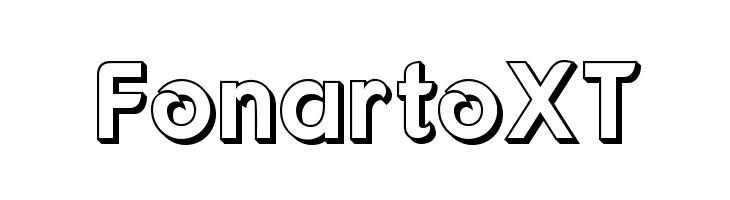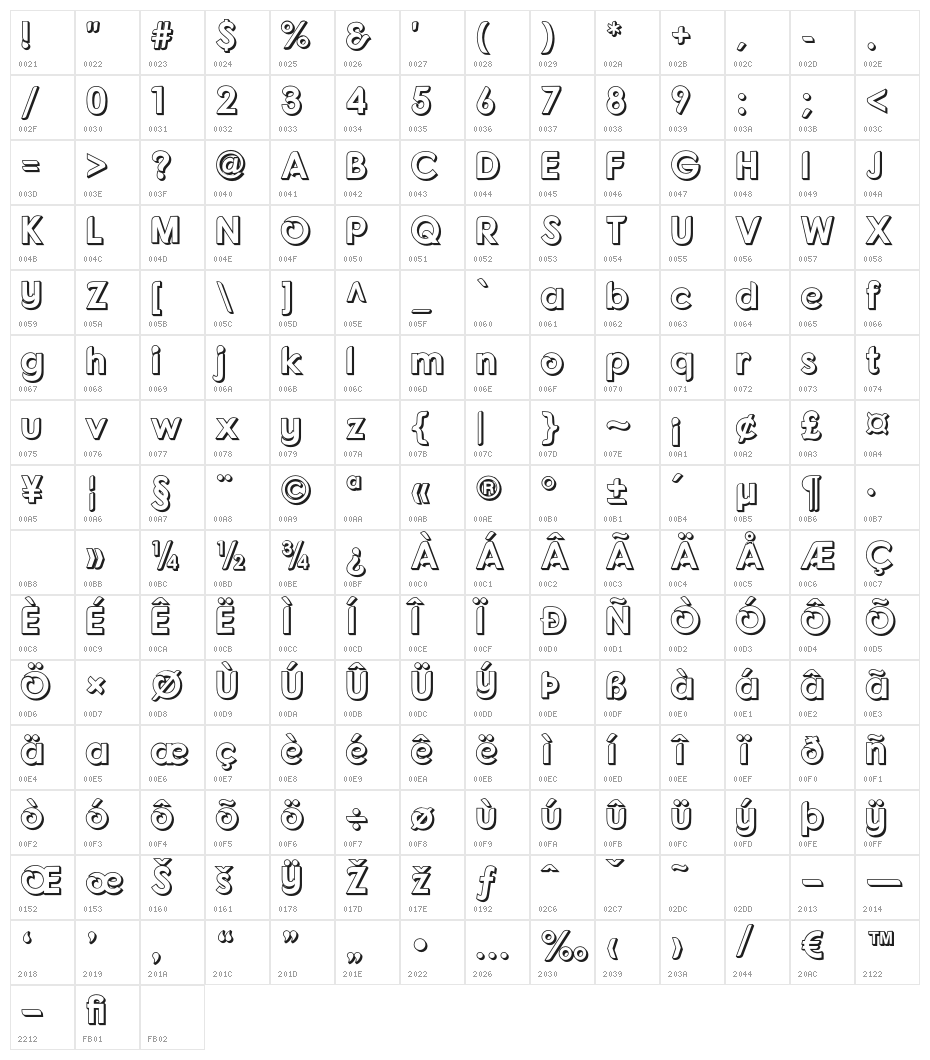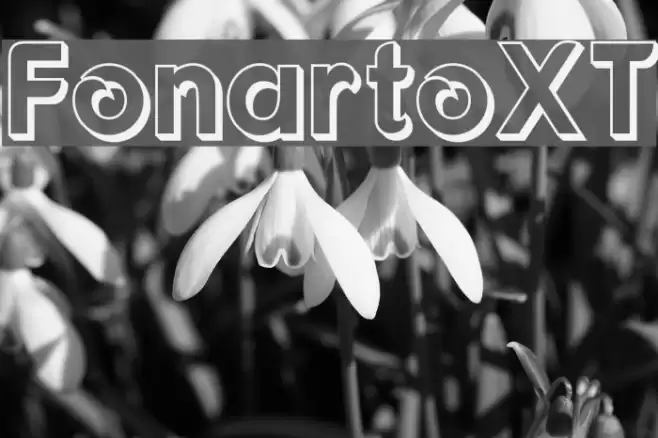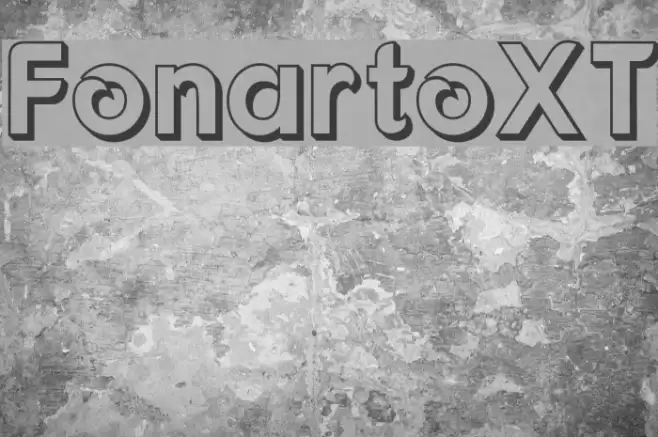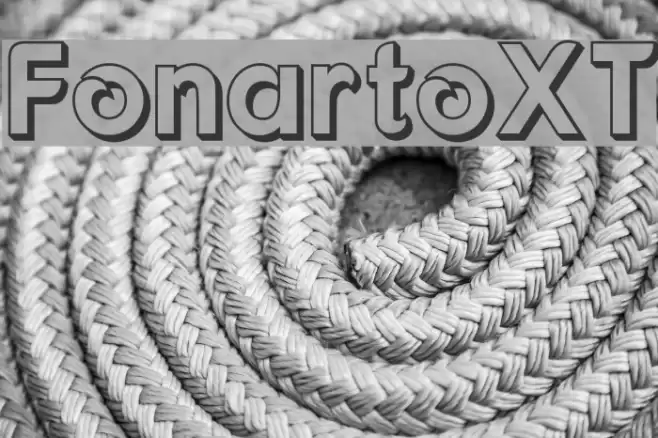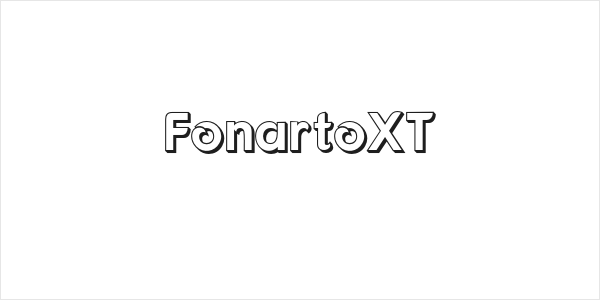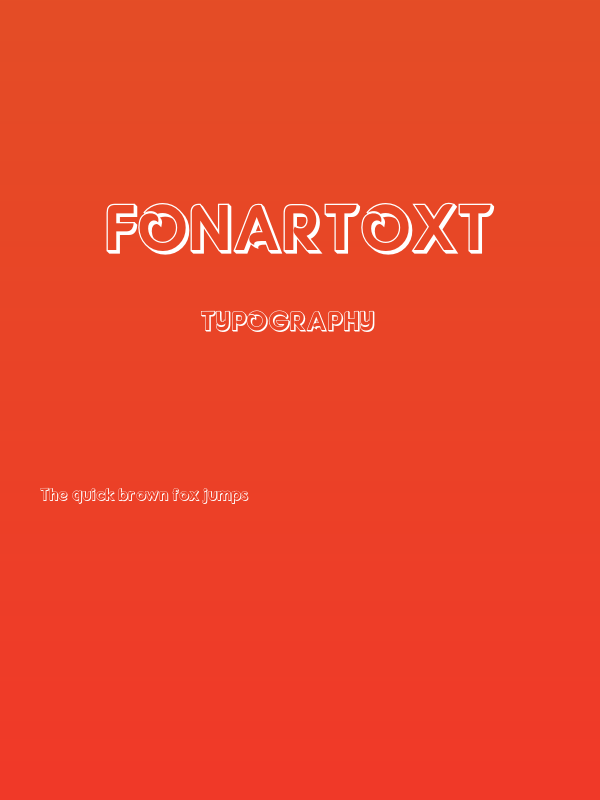
FonartoXT Font
FonartoXT Description
This font features a bold and playful design with a distinct outline that gives it a three-dimensional effect. The characters are well-rounded and have a consistent thickness, making them highly legible. The uppercase and lowercase letters maintain a uniform style, while the numerals and special characters complement the overall look. The font's outline adds a unique touch, making it stand out in various design applications. Its modern and fun appearance makes it suitable for creative projects that require a lively and engaging typeface.
| Proposed Projects | Ideal for posters, headlines, logos, and branding materials that require a bold and eye-catching typeface. |